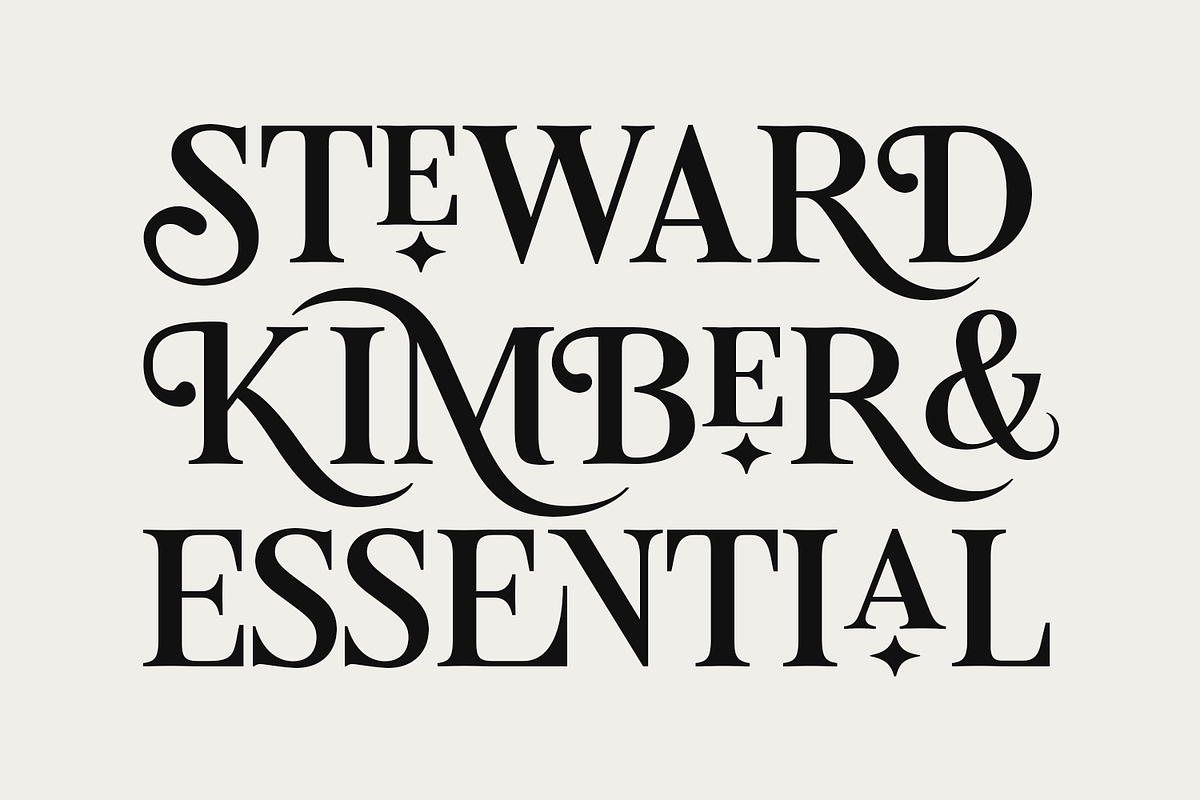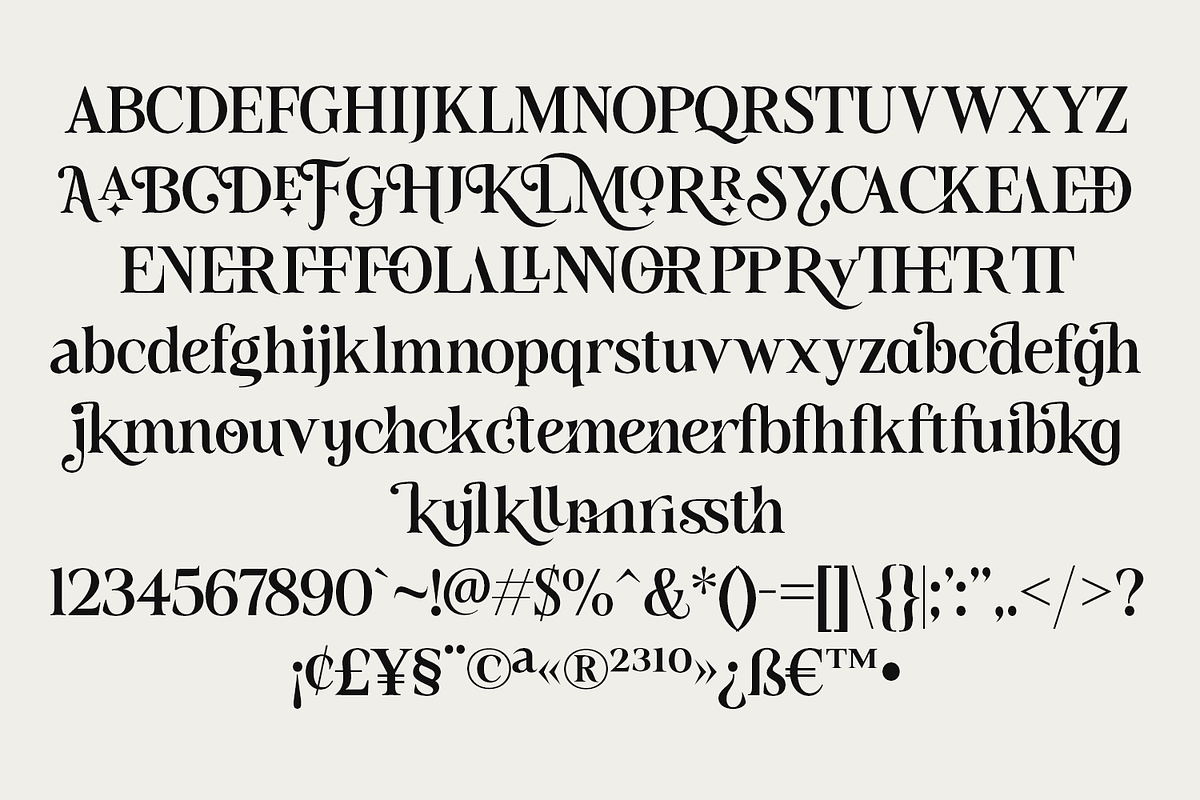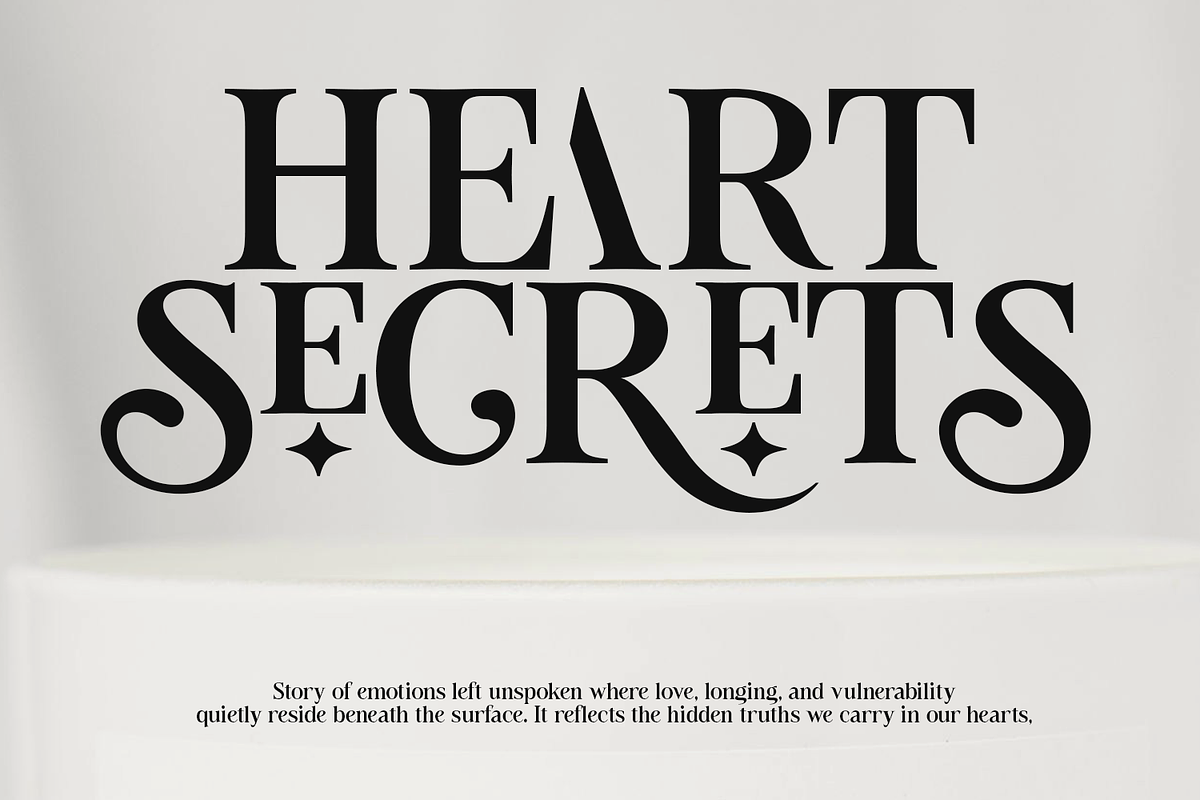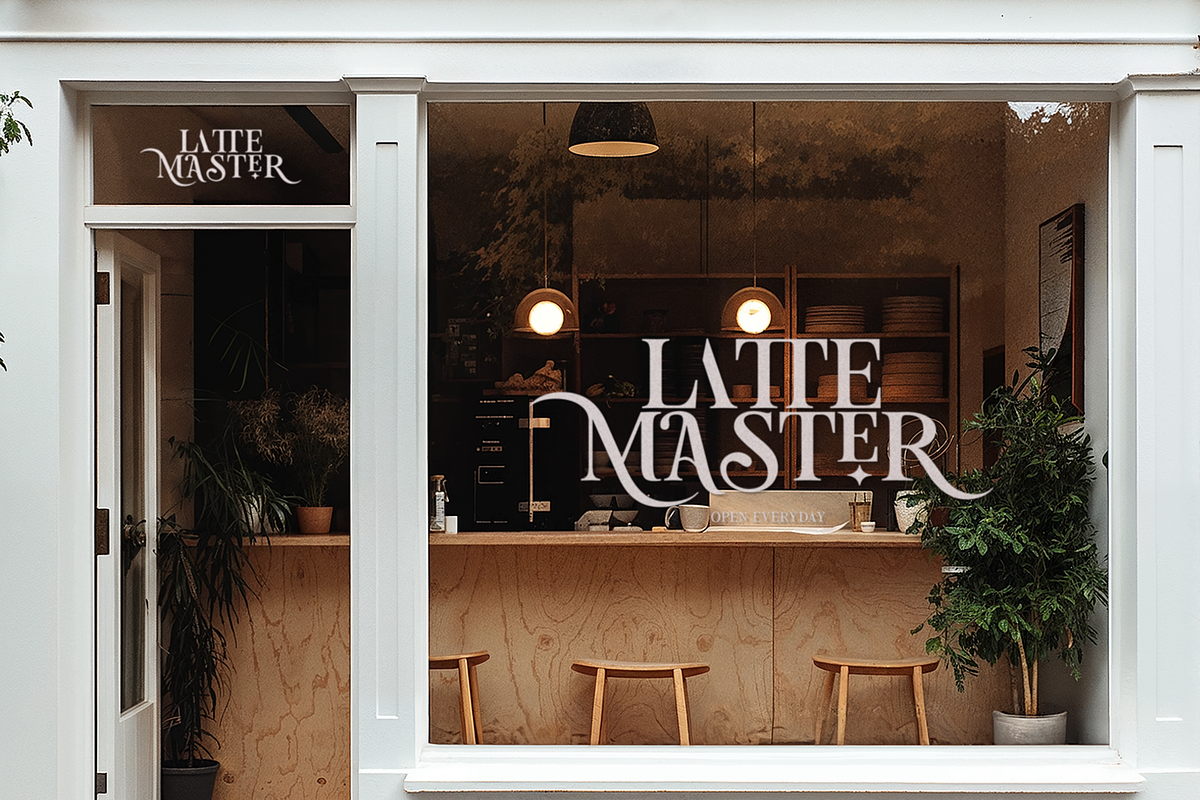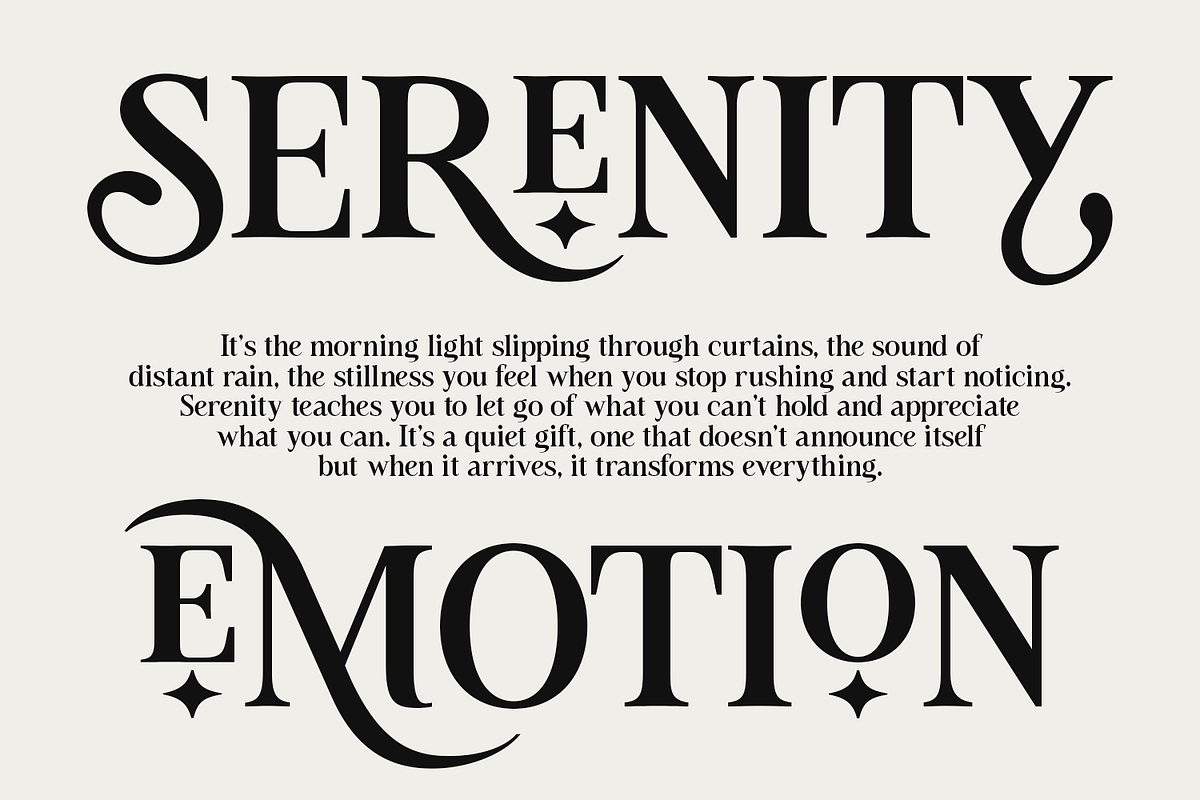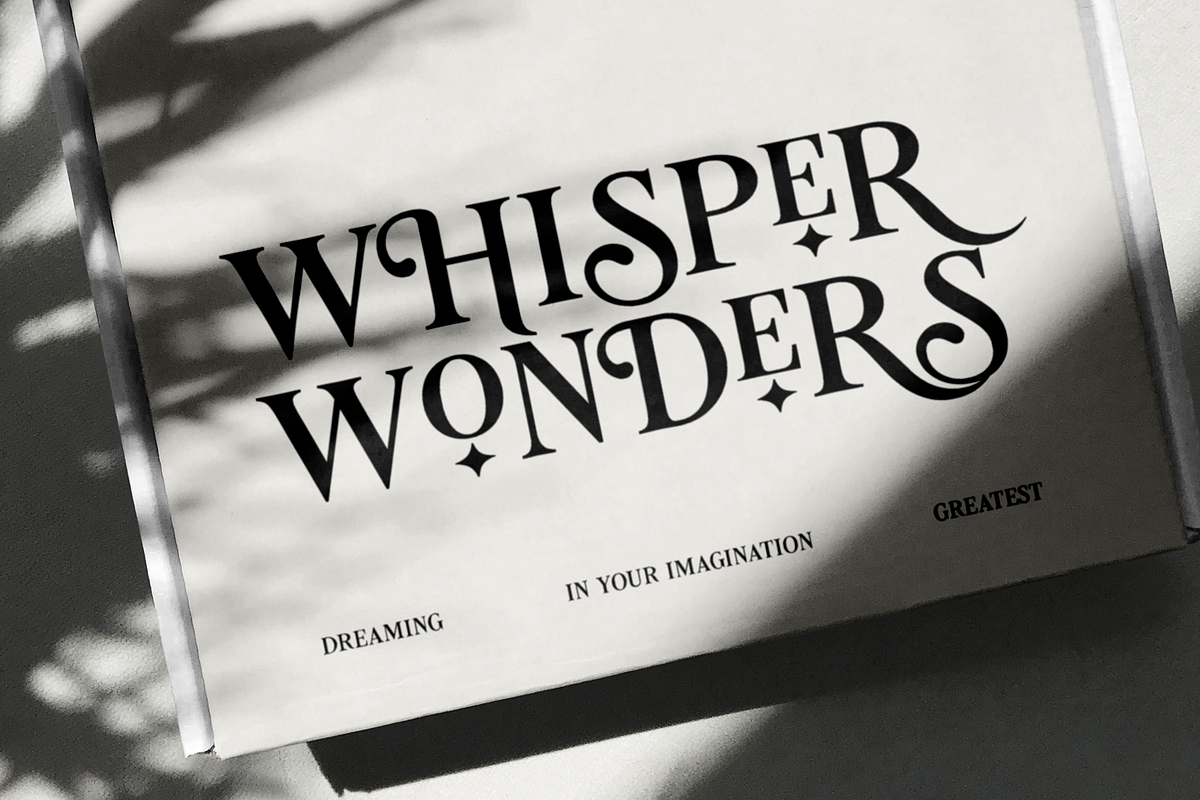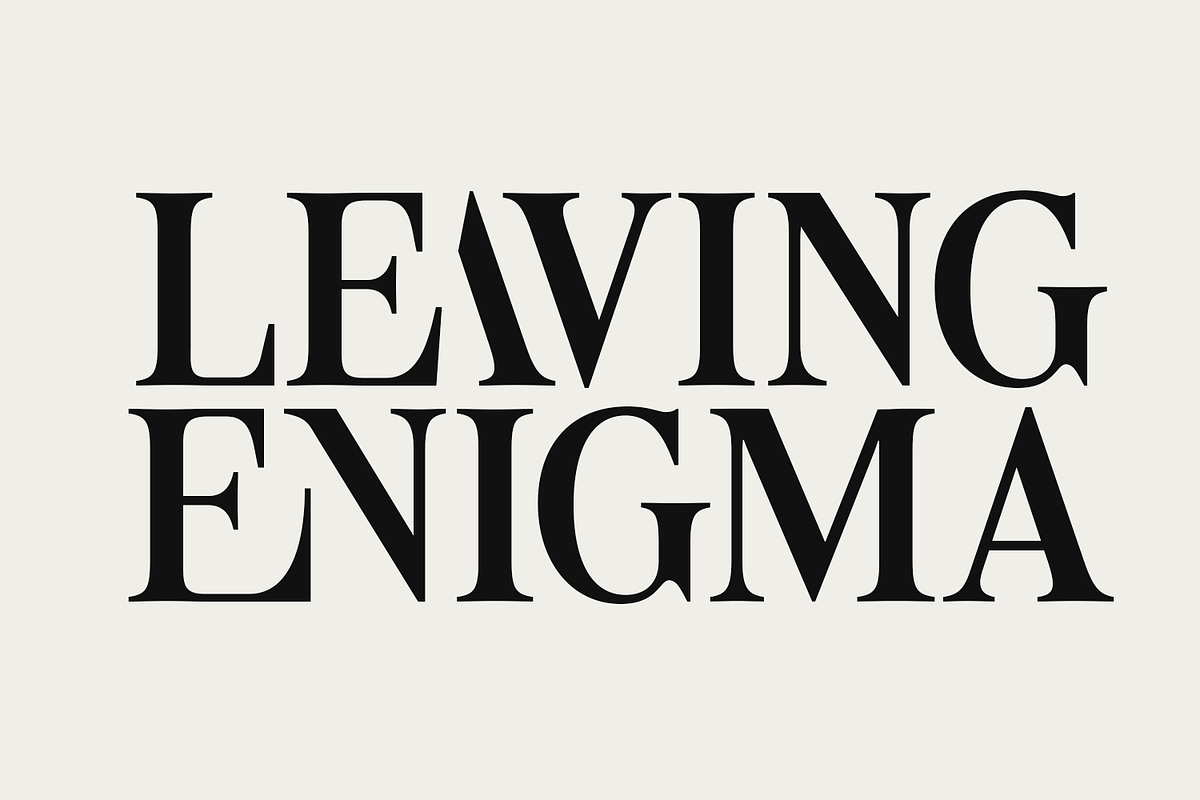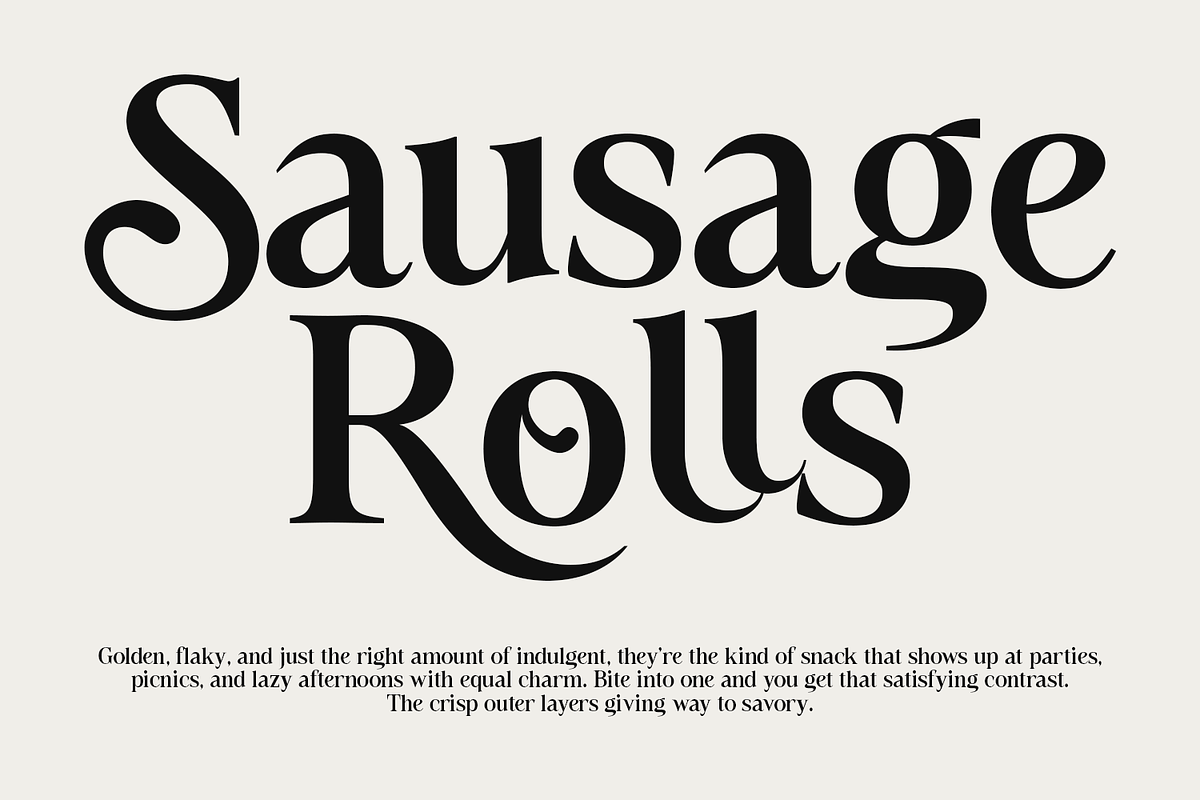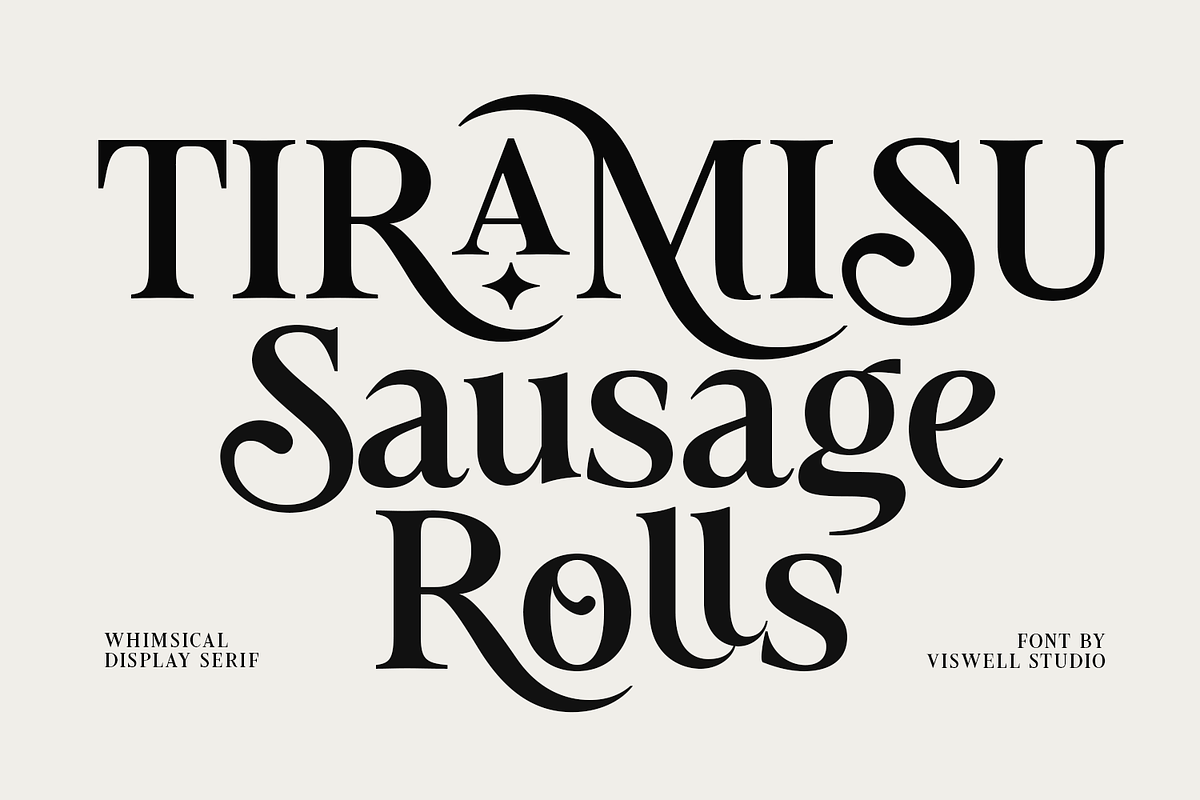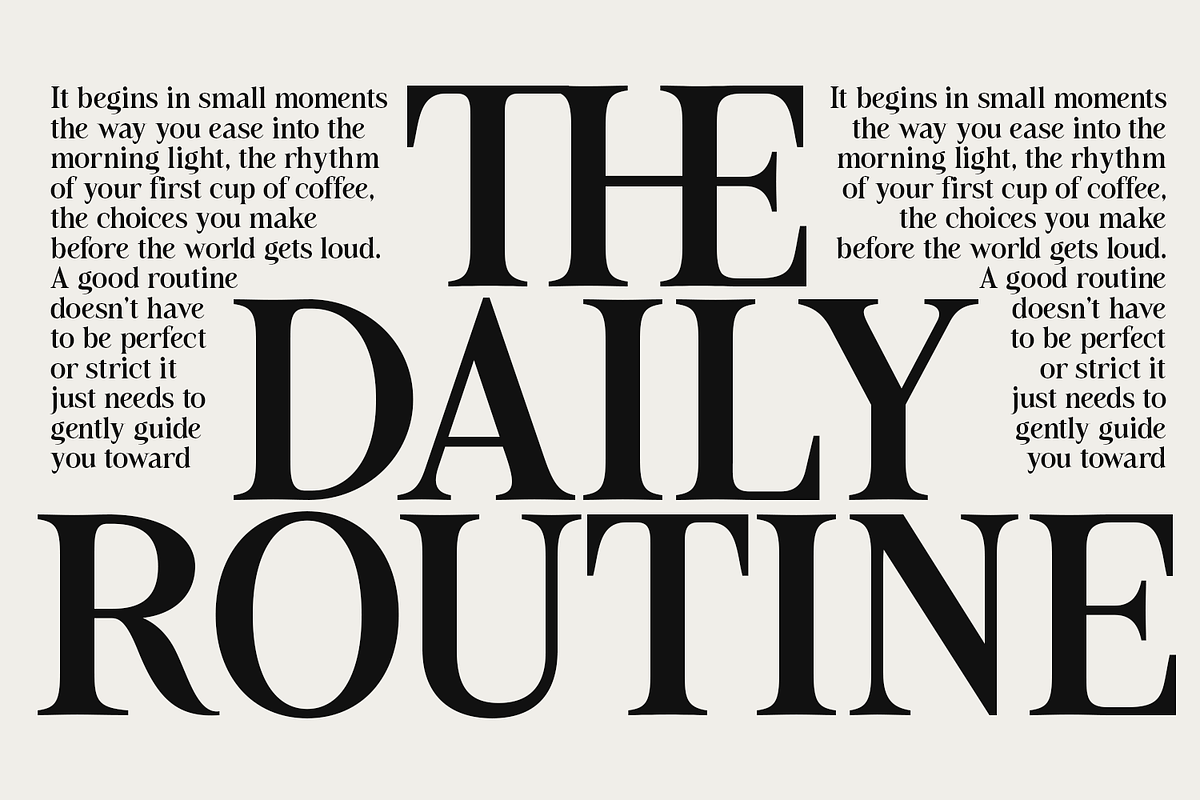
Tiramisu Sausage Rolls Serif
Tiramisu Sausage Rolls is a playful, high-contrast display serif designed to stand out instantly. It combines bold vintage shapes with soft curves and expressive details, giving your text a warm, handcrafted feel. The font includes uppercase, lowercase, numerals, punctuation, alternate & ligatures—perfect for logos, food branding, packaging, menus, posters, and eye-catching headlines that need personality without looking overdesigned.
What makes it unique is its charm and flexibility: it feels friendly, nostalgic, and premium all at once. If you want a typeface that adds character, tells a story, and makes your designs more memorable, Tiramisu Sausage Rolls is a smart and stylish choice for creative projects that deserve attention.